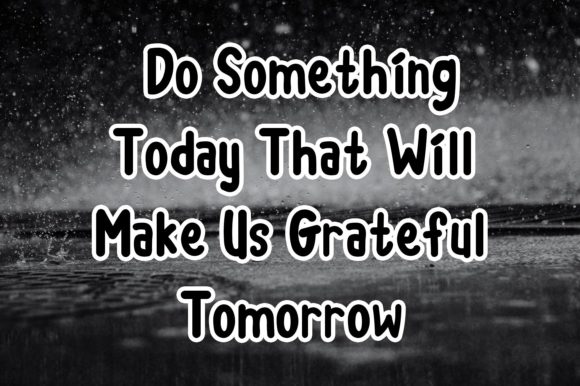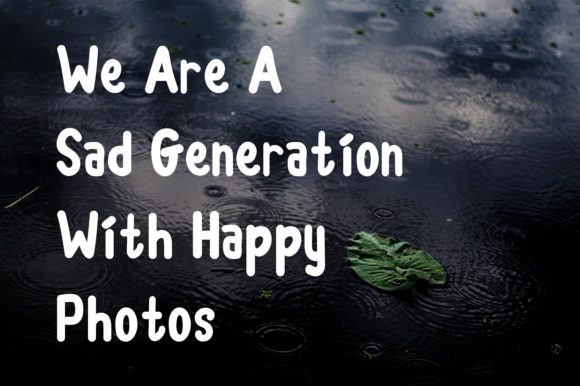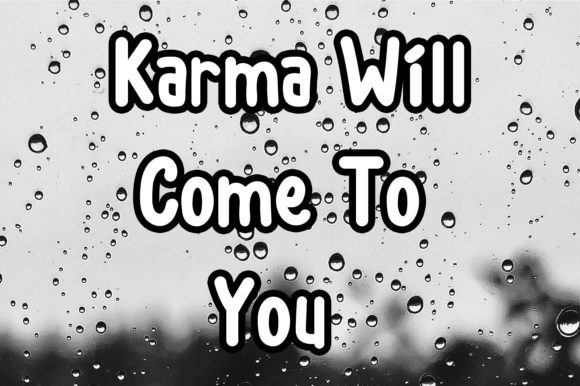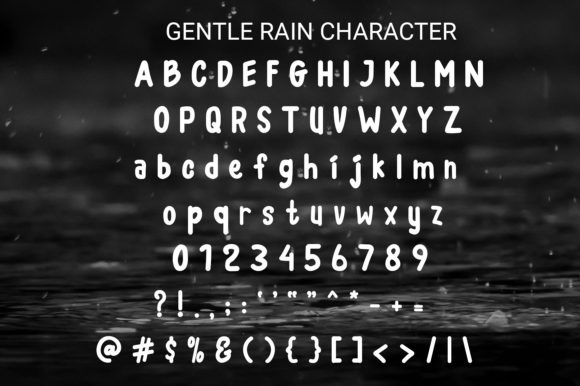
Introduction to Gentle Rain Font
As you sit at your desk, staring blankly at a blank page, waiting for that perfect spark to ignite your next creative project, you know the feeling. The blank slate is daunting, but the possibilities are endless. And then, like a gentle whisper in the wind, you stumble upon the perfect design resource – the Gentle Rain Font. This adorable display font is the perfect accompaniment to any creative endeavor, elevating your ideas from mere concepts to stunning realities.
The Gentle Rain Font is more than just a pretty face; it’s a versatile design tool that can be used in a multitude of ways, from Instagram captions to DIY calligraphy scripts. With its high-quality design and transparent background, it’s a free download that’s sure to become a staple in any designer’s toolkit. Whether you’re working on a logo, heading, or signage, this font is the perfect addition to bring your design to life.
- Unique, hand-drawn style that adds a touch of elegance and sophistication to any design project.
- Perfect for use in branding, advertising, and editorial design, where a subtle yet effective visual impact is desired.
Honest Review: Gentle Rain Font
As a designer, I’m always on the lookout for high-quality design resources to elevate my creative projects. The Gentle Rain Font is one such find that has caught my attention. With its elegant and delicate touch, this font is perfect for creating a soothing atmosphere in any design project.
- ✨ Beautifully crafted with intricate details that add a touch of sophistication to any design
- ✨ Perfect for creating a calm and serene atmosphere in a design project, making it ideal for wellness, beauty, or spa-related themes
One of the standout features of the Gentle Rain Font is its transparent background, which allows for seamless integration with any design element. This makes it a versatile design resource that can be used in a variety of creative projects.
- ⚠️ May not be suitable for bold or edgy designs, as its delicate nature may get lost in more aggressive compositions
Overall, I’m impressed with the Gentle Rain Font, and I think it’s a valuable addition to any designer’s toolkit. While it may have some limitations, its unique charm and high-quality design make it a worthwhile resource for any creative project.
Gentle Rain Font
The Gentle Rain Font is a beautiful, high-quality design resource that can elevate your creative project to the next level. With its elegant and soothing style, this font is perfect for a wide range of applications.
To get the most out of the Gentle Rain Font, use it with a transparent background to create a subtle, elegant look. You can also pair it with other design elements, such as graphics and images, to add depth and interest to your designs.
Common Use Cases for Gentle Rain Font
The Gentle Rain Font is perfect for a wide range of applications, including wedding invitations, baby shower invitations, and other special occasion designs. It’s also great for creating high-quality blog posts, social media graphics, and presentations.